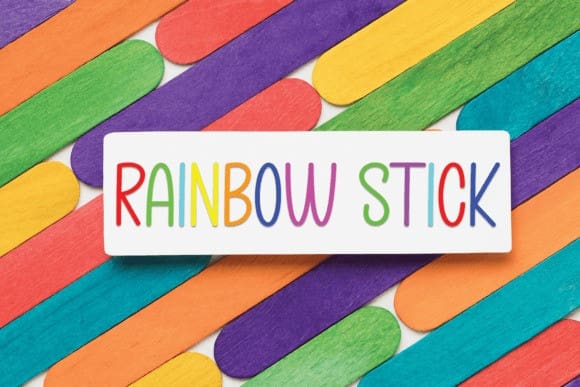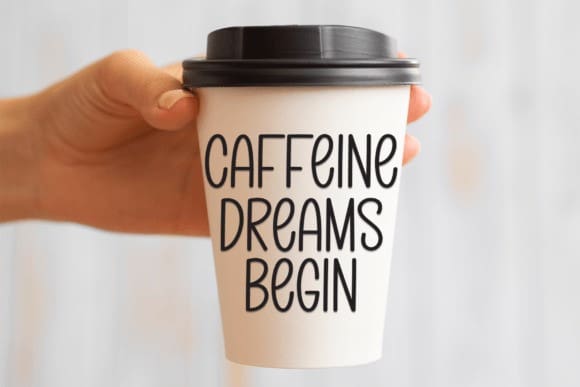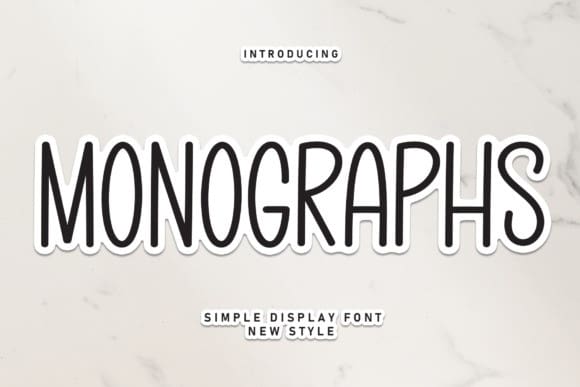
Monographs Display Font
Monographs Display Font is an exquisite handwritten font, masterfully designed to become a true favorite. It maintains its classy calligraphic influences while feeling contemporary and fresh. Fall in love with it and bring your projects to the highest levels!